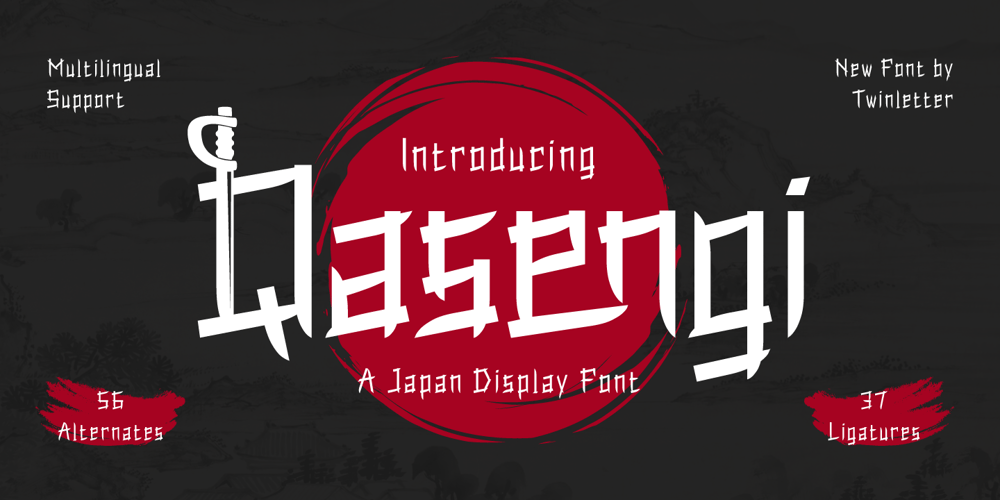
Qasengi Font Family was designed by Rozikan and published by Twinletter. Qasengi contains 1 styles and family package options. Qasengi is a bridge to the cultural wonders of Japan and Southeast Asia in a captivating typographic form. With a strong Japanese theme, this font is the perfect companion for any project that calls for a distinctly Japanese and Southeast Asian touch.What’s Included : File font All glyphs Iso Latin 1 Alternate, Ligature Simple installations PUA Encoded Characters – Fully accessible without additional design software. Fonts include Multilingual support